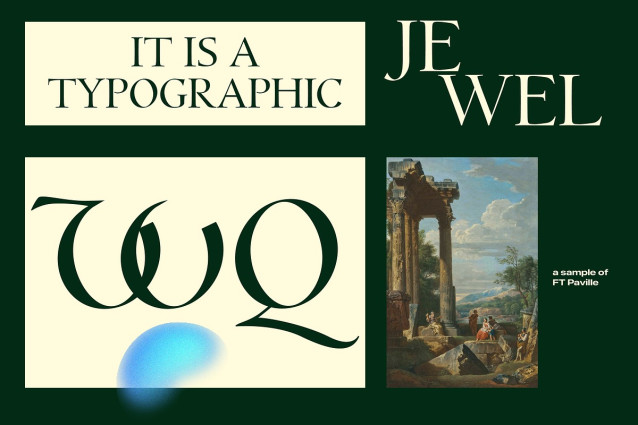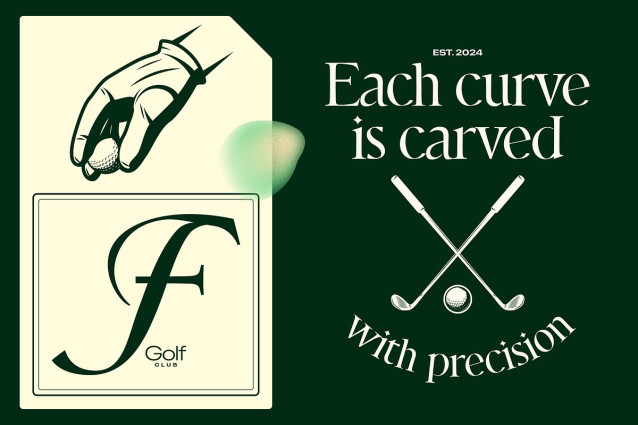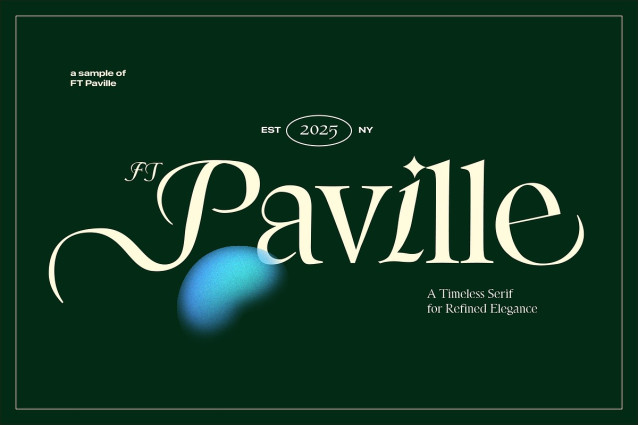
FT Paville Font is a modern serif font crafted for clean, elegant, and professional typography. Its balanced proportions and refined serif details make it a strong choice for branding, editorial layouts, and logo design.
Designed to perform well in both digital and print media, FT Paville offers versatility for designers working on premium and contemporary projects.
Ideal for: – Branding & identity – Editorial & magazine layouts – Logos & headlines – Packaging & promotional design